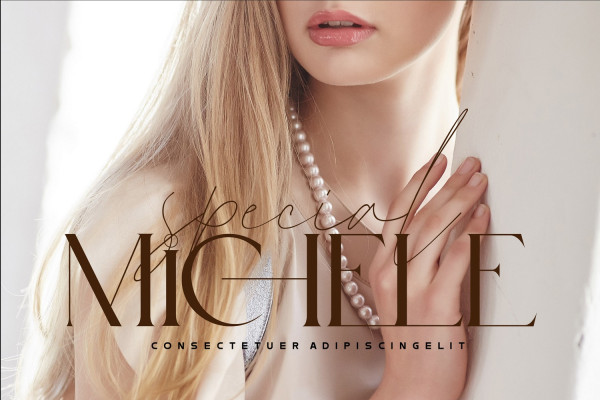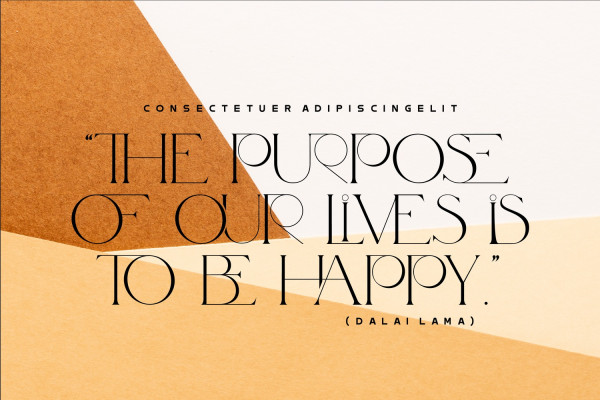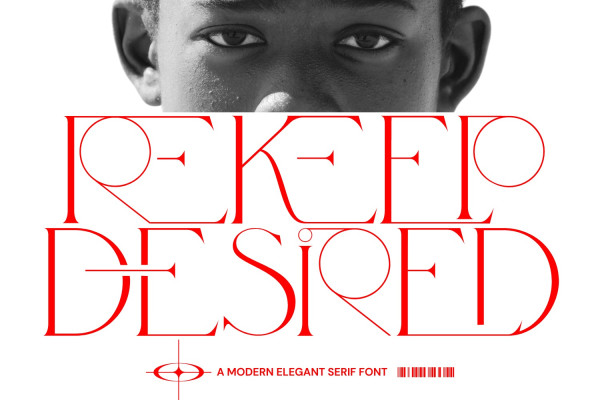
Rekeep Desired Font
Rekeep Desired Font is a modern elegant serif font family, that embodies timeless elegance and luxurious appeal. With its aesthetic charm and chic sophistication, this font adds a touch of nostalgia to your designs. This versatile typeface is perfect for creating captivating and elegant visuals, making it ideal for high-end branding and refined projects. It’s will perfect for many project: fashion, magazines, logo, branding, photography, invitations, wedding invitation, quotes, blog header, poster, advertisements, postcard, book, websites, etc.
Rekeep Desired was built with OpenType features and includes 100 ligatures, alternate, numbers, punctuation, and it also supports other languages.
AC AD AL AN AR AS AT AU AV BE CA CE CH CO CT DE DI EA EC ED EE EL EM EN EP ER ES ET FE FO FR GE HA HE HI HO IE IC IL IN IO IR IS IT JU KE LA LE LI LL LO LY MA ME MI NC ND NE NG NO NT NS OC OF OM ON OO OP OR OT OU OW PA PR RA RD RE RI RO RS RT SE SH SI SO SS ST TA TE TH TI TO TR TT UM UN UR VE WI WO